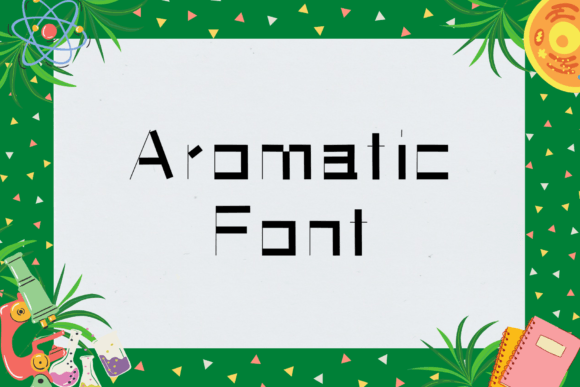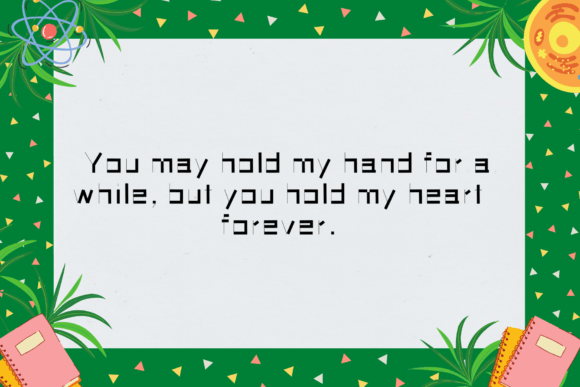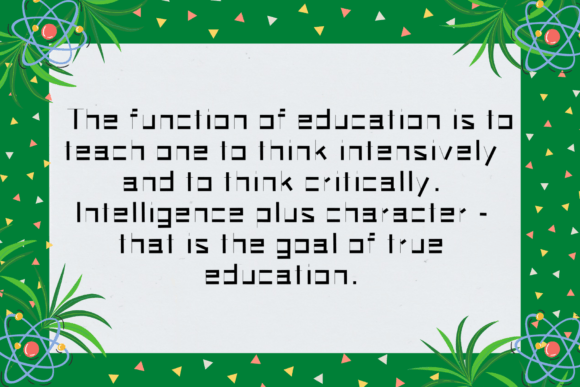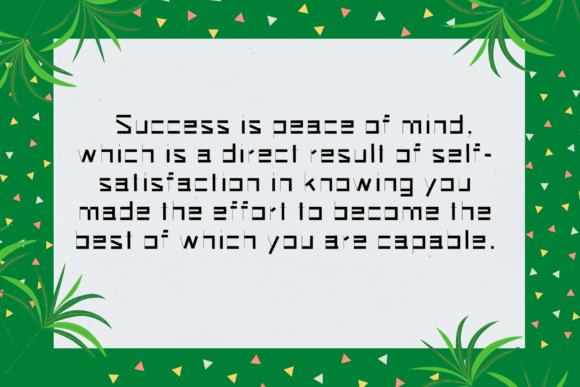
Aromatic Font
“Aromatic Font: Decorative Delight for Creative Projects
Introducing Aromatic Font, a decorative font crafted from a delightful combination of thin and bold lines, making it perfect for a variety of creative content. Whether you’re working on projects related to kids, crafts, IT, math, and more, Aromatic Font adds a touch of whimsy and creativity to your designs. This font is not just a typeface; it’s a design element that enhances your creative projects with its unique and playful style.
The decorative delight of Aromatic Font shines through, making it an excellent choice for a range of creative applications. The thin and bold lines come together harmoniously, allowing you to add a dynamic and visually appealing touch to your designs.
For creative content such as kids’ projects, crafts, and more, Aromatic Font becomes a standout choice, infusing a sense of playfulness and creativity into your text. The font’s decorative style contributes to a visually pleasing and memorable design.
In various creative endeavors such as posters, banners, and creative content for IT or math-related projects, Aromatic Font serves as a delightful element, creating a visual impact with its unique and playful design. Its versatile nature adds a touch of whimsy to your creative endeavors.
Aromatic Font’s suitability extends to a wide array of design applications, making it ideal for various creative projects. The font’s decorative and playful style enhances the overall aesthetics, creating a visually pleasing and memorable experience.
In conclusion, Aromatic Font is more than just a typeface; it’s a design companion that brings decorative delight to your creative toolkit. Let Aromatic Font be the artistic touch that adds whimsy to the beauty of your projects. Embrace the unique and playful charm of Aromatic Font, and watch as it transforms your ideas into visually enchanting and memorable experiences.”